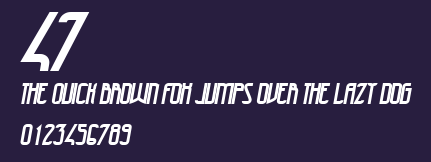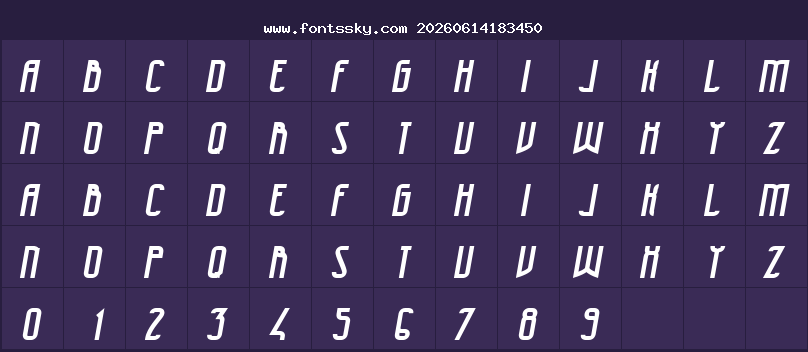
47 Preview
• Font Name: 47
• Font ID: 1.000;pyrs;BoldItalic
• Full Font Name: 47 Bold Italic
• Version: Version 1.00 2012
• PostScript Name: BoldItalic
• Character Count: 65
• Designer: Hendrick Rolandez
• Manufacturer: Moinzek
• Description: 47 Bold Italic is a font by Moinzek, designed by Hendrick Rolandez in 2012.
About 47.ttf
47.ttf is a modern, elegant sans-serif font designed for ultimate readability and visual harmony. Perfect for branding, headlines, web design, and print materials.